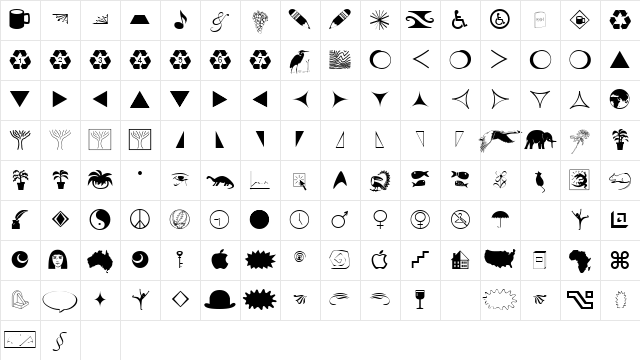
Free Regular
Design Context for Free
Free is a composed and adaptable typeface that performs quietly and consistently across a wide range of design contexts.